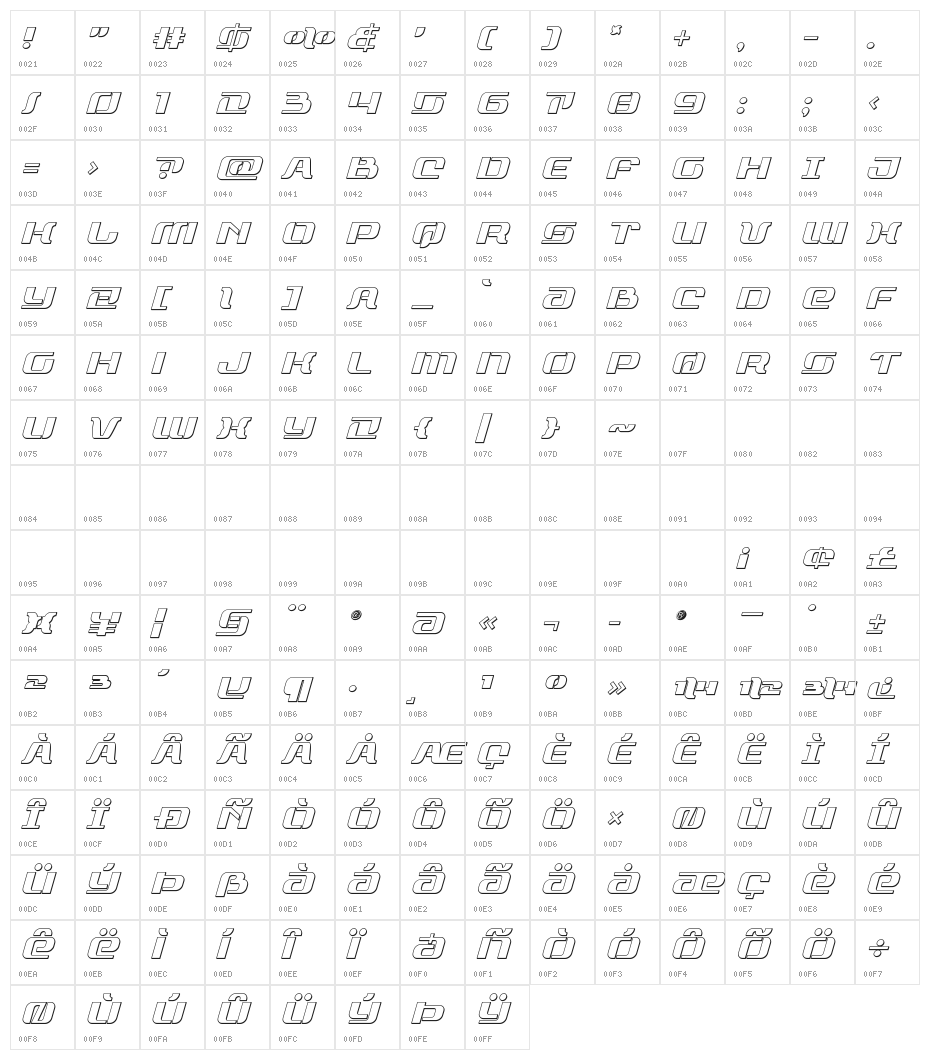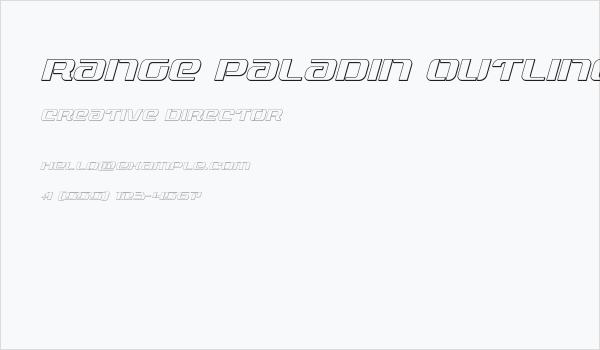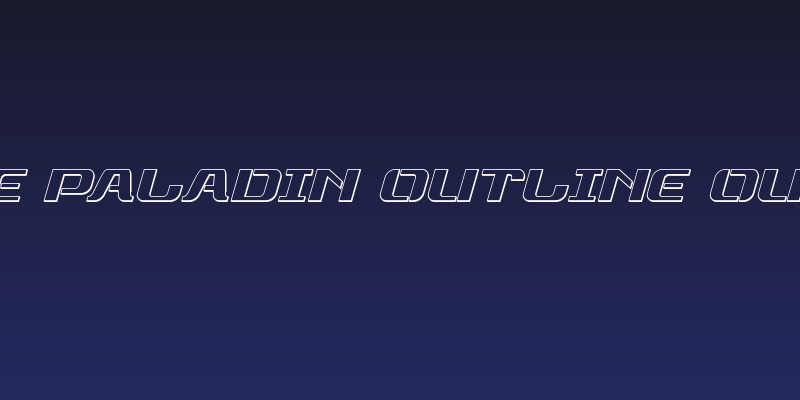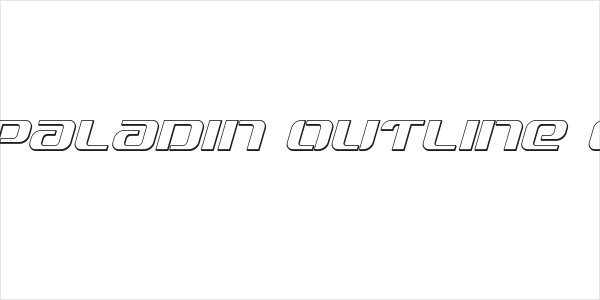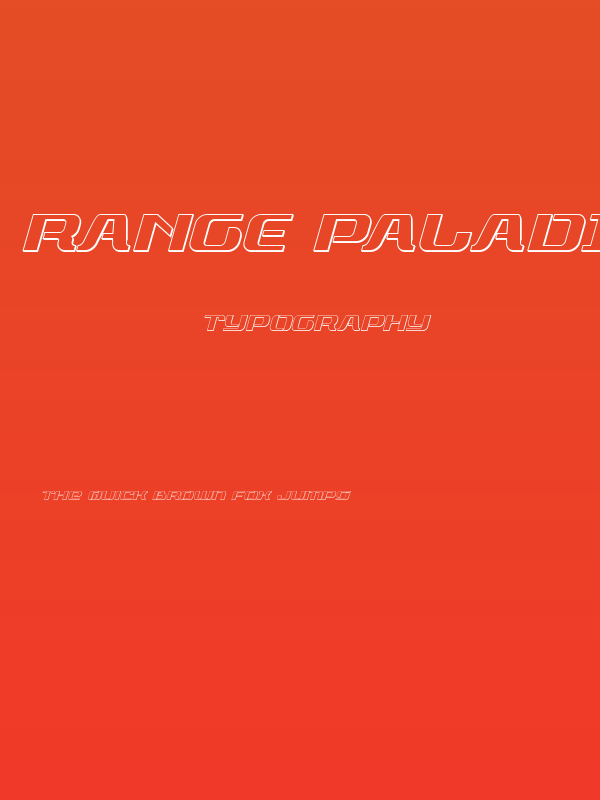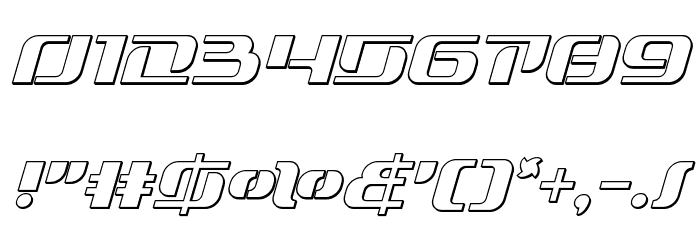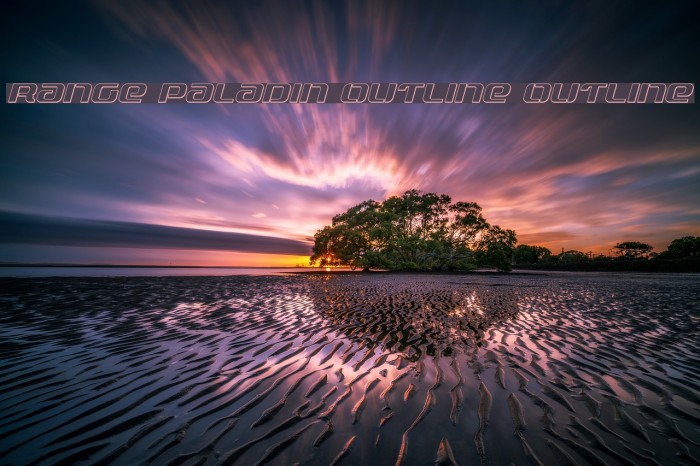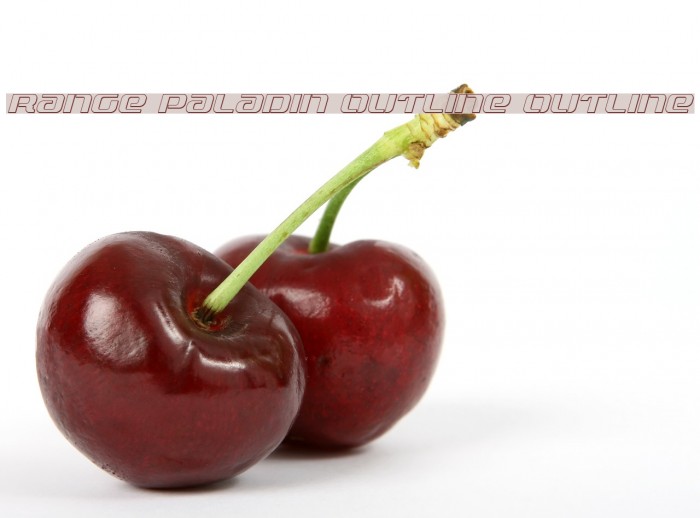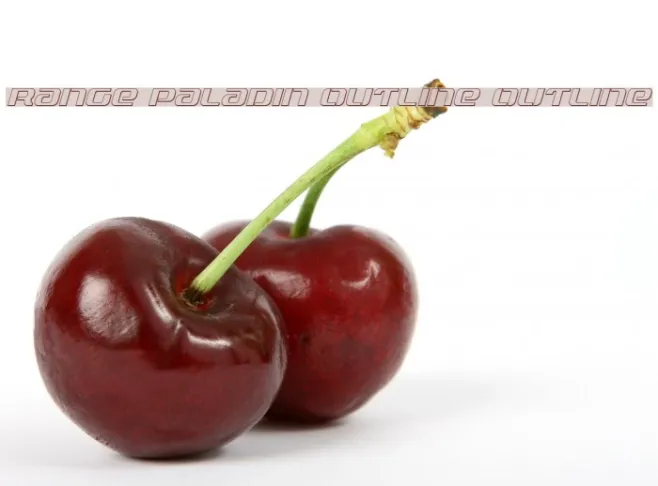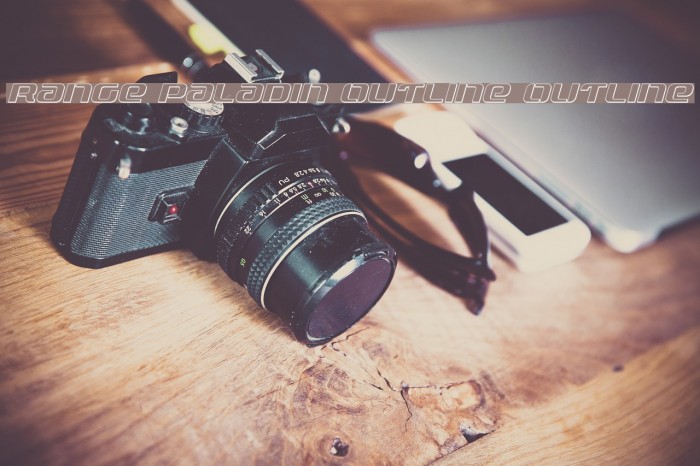
Range Paladin Outline Font
Range Paladin Outline Description
This font features a bold, outlined style with a futuristic and geometric appearance. The characters are uppercase and lowercase letters, along with numerals and a selection of special characters. Each letter is designed with a consistent outline, giving it a hollow look that emphasizes its shape and form. The font's structure is clean and modern, with a slight slant that adds a dynamic feel. The spacing between characters is normal, ensuring readability while maintaining its unique style. This font is ideal for projects that require a contemporary and eye-catching design.
| Proposed Projects | Ideal for branding, posters, digital media, and any project needing a modern, standout typeface. |